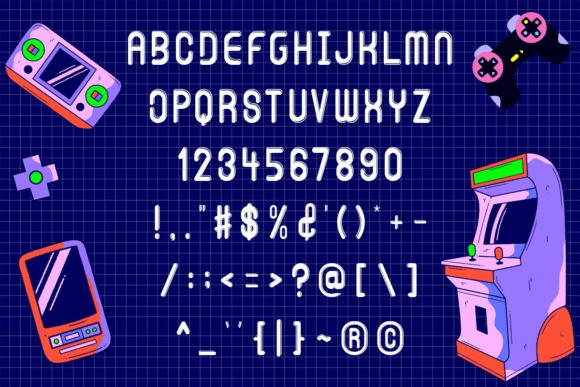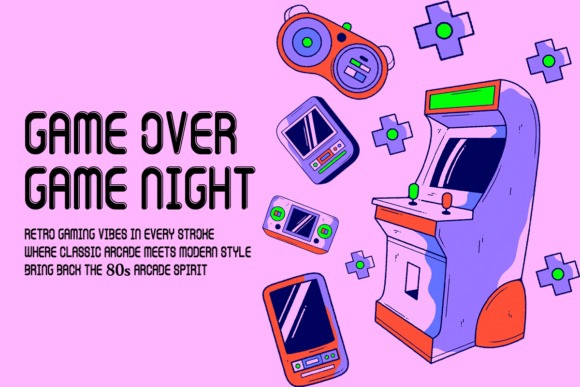
Gonadaltes Font
Gonadaltes Font is a bold and playful display typeface designed to capture the nostalgic vibe of classic arcade games and retro gaming culture. Its strong letterforms and rounded edges make it perfect for designs that need to feel fun, energetic, and eye-catching.
Inspired by the 80s and 90s arcade era, Gonadaltes brings back the spirit of neon lights, pixel screens, and high-score boards. It’s ideal for:
Whether you want to create a vintage gaming atmosphere or give your project a retro-futuristic twist, Gonadaltes is the perfect font to level up your design.